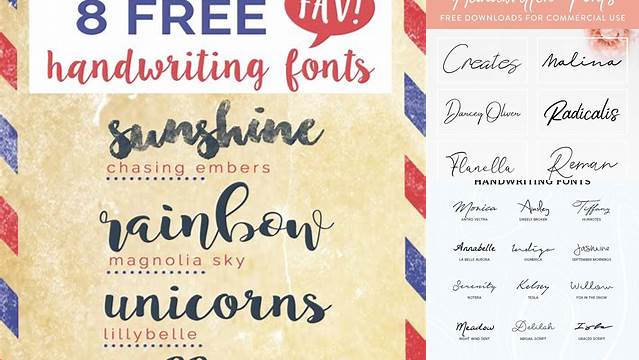
Free Handwriting Fonts: Script Styles For Elegant Designs
Are you looking to add a personal and elegant touch to your design projects? Free handwriting script fonts are the perfect solution! These fonts mimic the fluidity and charm of human handwriting, making them ideal for invitations, logos, branding, and more. In this comprehensive guide, we'll dive into the world of free handwriting script fonts, exploring their uses, benefits, and where to find the best ones.
What are Handwriting Script Fonts?
Guys, let's kick things off with a definition, shall we? Handwriting script fonts are typefaces designed to resemble human handwriting. Unlike formal or blocky fonts, script fonts have a natural, flowing style that adds a personal touch to any design. Think of the elegant curves of calligraphy or the playful loops of cursive – that’s the essence of handwriting script fonts.
These fonts come in various styles, from formal and elegant to casual and playful. Some mimic traditional calligraphy, while others have a more modern, quirky feel. This diversity makes handwriting script fonts incredibly versatile for a wide range of projects. Whether you’re designing a wedding invitation, creating a logo for a boutique, or adding a personal touch to your website, there’s a handwriting script font out there that’s perfect for the job.
The beauty of these fonts lies in their ability to evoke emotion and create a sense of connection. A well-chosen script font can convey warmth, authenticity, and a human touch, making your designs more engaging and memorable. However, it's crucial to use them thoughtfully. Overusing script fonts or pairing them with the wrong typefaces can make your design look cluttered or unprofessional. We'll dive deeper into the best practices for using handwriting script fonts later in this guide.
Why Use Free Handwriting Script Fonts?
So, why should you consider using free handwriting script fonts in your designs? Well, there are several compelling reasons. First and foremost, they add a unique and personal touch to your work. In a world dominated by digital communication, the handwritten feel can make your message stand out and create a stronger connection with your audience. Think about it – wouldn't a handwritten note feel more special than a typed email? The same principle applies to design.
Another significant advantage is versatility. As we mentioned earlier, handwriting script fonts come in various styles, making them suitable for diverse projects. Need something elegant for a wedding invitation? There’s a script font for that. Want a playful font for a children's book? You’ll find plenty of options. Looking for a sophisticated touch for a branding project? A well-chosen script font can do the trick. The possibilities are endless.
Moreover, using handwriting script fonts can help you create a distinct brand identity. If your brand values include authenticity, creativity, or a personal touch, a script font can be a powerful way to communicate these values. For example, a bakery might use a whimsical script font for its logo to convey a sense of homemade goodness, while a luxury brand might opt for an elegant script font to exude sophistication. The right font can be a key element in your branding strategy.
Finally, let's not forget the sheer aesthetic appeal. Handwriting script fonts are simply beautiful! Their flowing lines and unique letterforms can add a touch of artistry to any design. They can transform a simple text into a visual masterpiece, drawing the viewer's eye and making your message more impactful. It's like adding a sprinkle of magic dust to your project!
Where to Find Free Handwriting Script Fonts
Now, the million-dollar question: where can you find these fantastic free handwriting script fonts? The internet is overflowing with options, but not all fonts are created equal. It's crucial to find reputable sources that offer high-quality fonts with the appropriate licenses. Here are some of our favorite places to discover free handwriting script fonts:
Google Fonts: Google Fonts is a treasure trove of free fonts, including a wide variety of handwriting script styles. The best part? All fonts on Google Fonts are open source, meaning you can use them for personal and commercial projects without any licensing hassles. Plus, they are super easy to embed on websites.
Google Fonts offers a user-friendly interface where you can filter fonts by category, style, and even number of glyphs. This makes it easy to narrow down your search and find the perfect font for your needs. Some popular handwriting script fonts on Google Fonts include Great Vibes, Pacifico, and Lobster. Each of these fonts has a distinct personality, from the formal elegance of Great Vibes to the retro charm of Pacifico.
One of the great things about using fonts from Google Fonts is their reliability. They are optimized for web use, ensuring that your text looks crisp and clear on any device. Plus, Google Fonts provides easy-to-use code snippets for embedding fonts on your website, making the process seamless. Whether you're a seasoned designer or just starting out, Google Fonts is a fantastic resource for free, high-quality fonts.
Font Squirrel: Font Squirrel is another excellent resource for free fonts, known for its carefully curated selection and focus on commercial-use licenses. This means you can confidently use fonts from Font Squirrel in your client projects without worrying about copyright issues. They also have a handy Font Identifier tool that helps you identify fonts from images.
Font Squirrel offers a diverse collection of handwriting script fonts, ranging from elegant and refined to playful and whimsical. The site's search filters allow you to sort fonts by style, weight, and other criteria, making it easy to find exactly what you're looking for. They also feature a "Test Drive" tool that lets you preview how a font looks with your own text before you download it. This is a great way to ensure that the font you choose is the perfect fit for your project.
In addition to their extensive font library, Font Squirrel also provides useful articles and resources on typography and font licensing. This makes it a valuable resource for designers of all levels, from beginners to experienced professionals. If you're serious about typography and want to ensure that you're using fonts legally and effectively, Font Squirrel is a must-visit.
DaFont: DaFont is a popular website with a vast collection of free fonts, including a huge selection of handwriting script fonts. While the quality and licensing terms can vary, it's a great place to find unique and unusual fonts. Just be sure to check the license before using a font in a commercial project.
DaFont's user interface is simple and straightforward, with clear categories and search filters that make it easy to browse their extensive library. You can preview fonts with your own text, download them in a single click, and even contact the font author directly if you have any questions. The site is community-driven, with designers from around the world contributing their creations, so you're sure to find something that suits your style.
However, it's important to note that DaFont's licensing terms can vary from font to font. Some fonts are free for both personal and commercial use, while others are only free for personal use. Always check the license agreement before using a font in a commercial project to avoid any legal issues. Despite this caveat, DaFont is an invaluable resource for finding unique and creative fonts.
Creative Market Free Goods: Creative Market offers a selection of free goods every week, including fonts. While the selection changes regularly, you can often find high-quality handwriting script fonts in their freebies section. Keep an eye on their offerings, and you might just snag the perfect font for your next project.
Creative Market is a marketplace for creative assets, including fonts, graphics, templates, and more. They feature the work of independent designers from around the world, so you'll find a diverse range of styles and aesthetics. Their free goods section is a great way to discover new talent and add high-quality resources to your toolkit without spending a dime.
The fonts offered in Creative Market's free goods section are typically premium fonts that are available for free for a limited time. This means you can often get your hands on fonts that would otherwise cost money. However, it's important to check the licensing terms carefully, as they may vary from font to font. Even if a font is offered for free, it may still have restrictions on commercial use. Be sure to read the fine print before incorporating it into your projects.
MyFonts: MyFonts is a leading font marketplace with a vast library of fonts, including many handwriting script options. While most fonts on MyFonts are paid, they occasionally offer free fonts as part of promotions. It's worth checking their site regularly to see if any freebies are available.
MyFonts is known for its high-quality fonts and extensive selection. They feature the work of some of the world's leading type designers, so you can be sure you're getting a top-notch product. Their website offers advanced search filters that allow you to narrow down your options by style, weight, and other criteria. They also have a "WhatTheFont" tool that helps you identify fonts from images, which can be a lifesaver when you're trying to match a font.
While most fonts on MyFonts are paid, they occasionally offer free fonts as part of promotions or special events. These freebies are often high-quality fonts that would normally cost money, so it's worth checking their site regularly to see what's available. You can also sign up for their newsletter to receive updates on new releases and special offers. If you're serious about typography, MyFonts is an essential resource.
How to Use Handwriting Script Fonts Effectively
Finding the perfect free handwriting script font is only half the battle. Using it effectively is crucial to achieving the desired impact in your design. Here are some tips to help you make the most of handwriting script fonts:
1. Legibility is Key
While handwriting script fonts are beautiful, legibility should always be a top priority. Some script fonts can be overly ornate or have intricate details that make them difficult to read, especially in smaller sizes. If your audience can't easily read your text, your message will be lost.
When choosing a script font, consider its readability in different contexts. How does it look in a headline versus body text? Is it clear on both digital screens and printed materials? Test the font in various sizes and contexts to ensure it remains legible. Avoid using overly decorative fonts for large blocks of text. Instead, reserve them for headings, logos, or short phrases where their unique style can shine without compromising readability.
Pay attention to the spacing between letters and words. Tight spacing can make a script font look cluttered and difficult to read, while too much spacing can make it appear disjointed. Adjust the kerning and tracking settings in your design software to achieve optimal spacing. Also, consider the contrast between the font and the background. A light script font on a dark background or vice versa can enhance readability and make your text stand out.
Ultimately, the goal is to strike a balance between style and legibility. Choose a script font that captures the desired aesthetic while remaining easy to read. If in doubt, err on the side of legibility. Your message is more important than the font itself.
2. Use Sparingly
Handwriting script fonts are best used sparingly. Overusing them can overwhelm your design and make it look cluttered and unprofessional. Think of them as a special ingredient in a recipe – a little can go a long way, but too much can ruin the dish.
Use script fonts to highlight key elements, such as headings, subheadings, or call-to-actions. They can add a touch of elegance and personality to these elements without overpowering the rest of your design. Avoid using script fonts for large blocks of body text. As we discussed earlier, legibility can be an issue with script fonts, and long paragraphs of script text can be tiring to read. Stick to simpler, more readable fonts for body text.
Consider the overall visual hierarchy of your design. Use script fonts strategically to draw the viewer's eye to the most important elements. This can help guide their attention and ensure they grasp your message quickly and easily. For example, you might use a script font for your logo and a sans-serif font for your website's navigation menu. This creates a clear distinction between the brand identity and the functional elements of the site.
When in doubt, less is more. A single well-chosen script font used sparingly can be far more effective than multiple script fonts used indiscriminately. Choose a script font that truly reflects the personality of your brand or project, and use it thoughtfully to create a memorable and impactful design.
3. Pair with Simple Fonts
Handwriting script fonts pair best with simple, clean fonts, such as sans-serif or serif fonts. The contrast between the ornate script and the clean lines of the simpler font creates a visually appealing balance. Think of it as a dance – one partner leads with flair, while the other provides a steady foundation.
When choosing a font pairing, consider the overall tone and style of your design. If you're going for an elegant and sophisticated look, pair a formal script font with a classic serif font like Times New Roman or Garamond. If you want a more modern and playful feel, combine a casual script font with a sans-serif font like Open Sans or Montserrat. The key is to create a harmonious contrast that enhances the readability and visual appeal of your design.
Avoid pairing script fonts with other decorative or overly stylized fonts. This can create a visual cacophony and make your design look cluttered and overwhelming. The goal is to create a cohesive and balanced look, and that's best achieved by pairing a script font with a simpler counterpart. Pay attention to the weight and size of the fonts. If the script font is very bold, pair it with a lighter-weight sans-serif or serif font. If the script font is delicate and thin, you might choose a slightly bolder font for the body text to ensure readability.
Experiment with different font pairings until you find one that works well for your project. There are many great online resources that offer font pairing suggestions and inspiration. Don't be afraid to try something new and push your creative boundaries. The right font pairing can elevate your design and make it truly shine.
4. Consider the Context
The context in which you're using the free handwriting script font matters. A font that works well for a wedding invitation might not be suitable for a business report. Consider the overall tone, style, and purpose of your project when choosing a script font.
For formal occasions like weddings or galas, elegant and refined script fonts are a natural choice. These fonts can add a touch of sophistication and romance to your invitations, programs, and other materials. Look for fonts with flowing lines, graceful curves, and subtle details. Pair them with classic serif fonts and a muted color palette for a timeless and elegant look.
For more casual projects, such as blog headers or social media graphics, you can use more playful and whimsical script fonts. These fonts can add a touch of personality and fun to your designs. Look for fonts with unique letterforms, quirky details, and a relaxed feel. Pair them with sans-serif fonts and a brighter color palette for a modern and energetic look.
If you're using a script font for branding purposes, consider your brand's identity and values. A luxury brand might choose an elegant and sophisticated script font, while a children's brand might opt for a playful and whimsical font. The font should be consistent with your brand's overall message and aesthetic. Think about your target audience. What kind of fonts will resonate with them? A script font that appeals to a young, trendy audience might not be the best choice for a more mature and professional audience.
5. Check the License
Before using any free handwriting script font in your project, always check the license. Free fonts come with different licensing terms, and it's crucial to understand what you're allowed to do with them. Using a font in violation of its license can lead to legal issues.
Most free fonts come with either a personal use license or a commercial use license. A personal use license typically allows you to use the font for non-commercial projects, such as personal invitations or school assignments. A commercial use license allows you to use the font for projects that generate revenue, such as logos, websites, and marketing materials. Some licenses may have additional restrictions, such as limitations on the number of projects you can use the font in or the types of media you can use it for. Always read the license agreement carefully to ensure you comply with its terms.
If you're unsure about the licensing terms of a particular font, contact the font author or the website where you downloaded the font. They should be able to provide clarification. Many font websites, like Google Fonts and Font Squirrel, offer clear licensing information for each font. This makes it easy to determine whether a font is suitable for your project.
When in doubt, it's always best to err on the side of caution. If you're planning to use a font for commercial purposes, make sure you have the appropriate license. Otherwise, you could face legal consequences. Ignoring font licenses can result in copyright infringement lawsuits, which can be costly and time-consuming. Protect yourself and your business by always checking the license before using a font.
Free handwriting script fonts are a powerful tool for adding a personal and elegant touch to your designs. By understanding their uses, benefits, and how to use them effectively, you can elevate your projects and create stunning visuals. Remember to choose fonts that are legible, use them sparingly, pair them with simple fonts, consider the context, and always check the license. With these tips in mind, you'll be well on your way to mastering the art of handwriting script fonts.